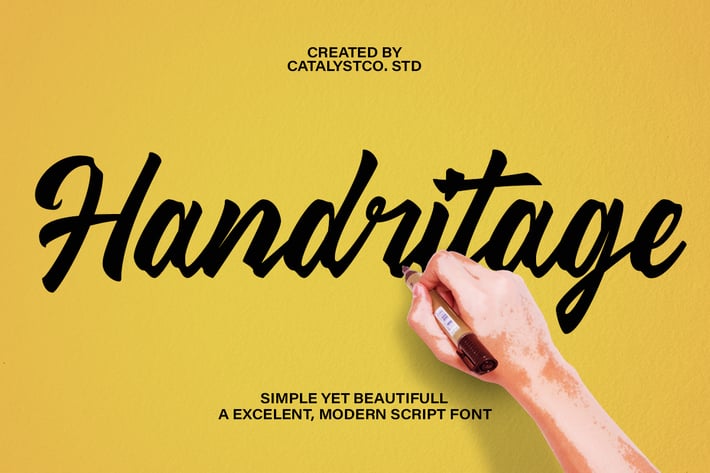
Hendritage Modern Script Font
Handritage is a modern handwritten script font inspired by smooth pen strokes and natural calligraphy flow. Its elegant curves, consistent rhythm, and expressive personality give it a warm handmade feel while still maintaining modern clarity and readability. Perfect for personal branding and creative design, Handritage brings a beautiful balance of simplicity and charm.
Great for signature logos, wedding invitations, product packaging, social media quotes, posters, handwritten titles, and feminine design themes. With complete uppercase, lowercase, numerals, and punctuation, Handritage offers a versatile and expressive script style that enhances any project with a personal and stylish touch.
Suitable for signature logos, wedding stationery, branding projects, product packaging, social media quotes, greeting cards, posters, handmade-style designs, and creative projects that require a stylish, natural, and modern handwritten script.
Ligatures & Alternate
Numeral & Punctuations
* Multilingual Support